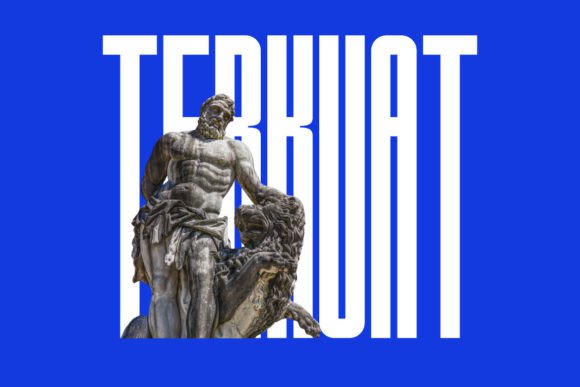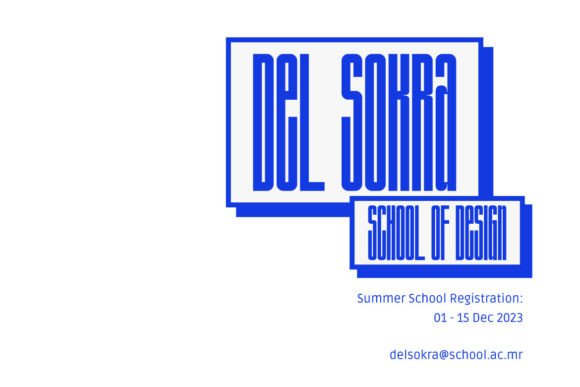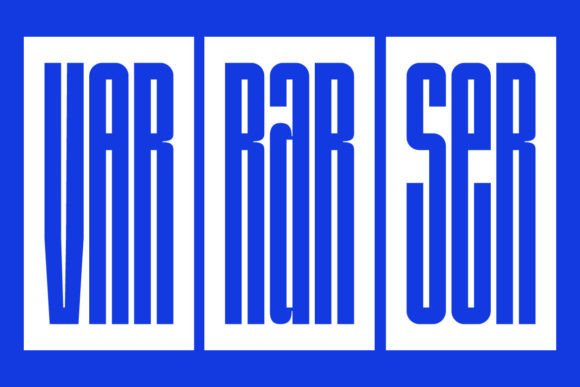
Introduction to Herculine Font
Herculine is an extraordinary display font that takes the concept of condensed typography to new heights, quite literally.
This font boasts an ultra-condensed and towering design, making it a standout choice for modern, clean, and sleek design projects The tall and slender letterforms of β€œHerculine” give it a distinctive and commanding presence.
Key Features of Herculine Font
Why Choose Herculine Font?
Herculine Font offers exceptional quality and versatility, making it a valuable addition to your design toolkit. Whether you’re creating for personal projects or commercial use, Herculine Font delivers professional results.